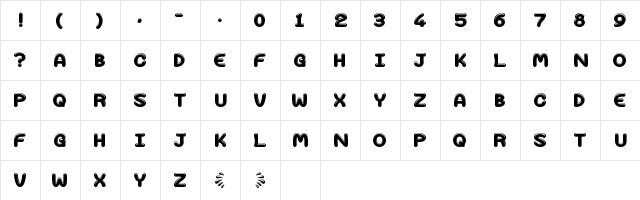
Bubblegum Ink Regular
Design Context for Bubblegum Ink Typeface
Bubblegum Ink trades formality for fun, with bouncy, characterful letterforms that bring warmth and energy to any project.
Font Pairing: Pairs well with a rounded or humanist sans for body copy, maintaining the friendly tone without relying on Bubblegum Ink to carry extended reading.
Pro Tip: Use Bubblegum Ink at larger display sizes where its expressive character can land. Pair with a clean, simple sans for body copy to maintain readability.